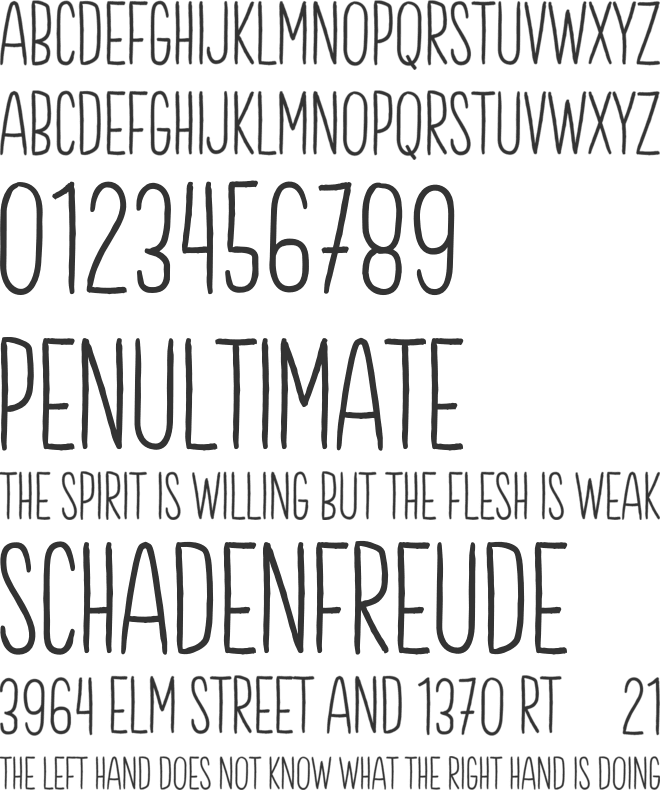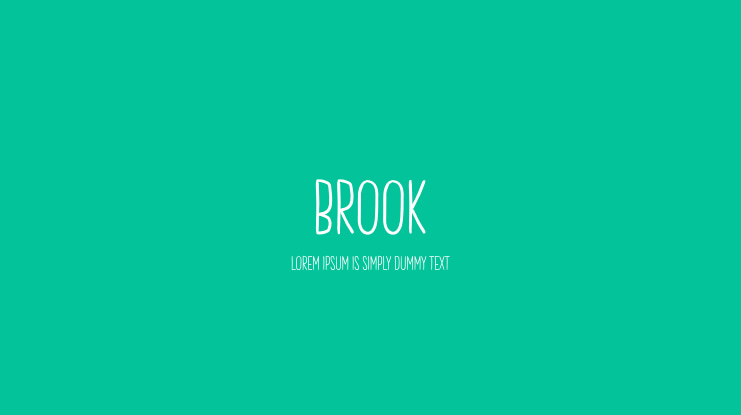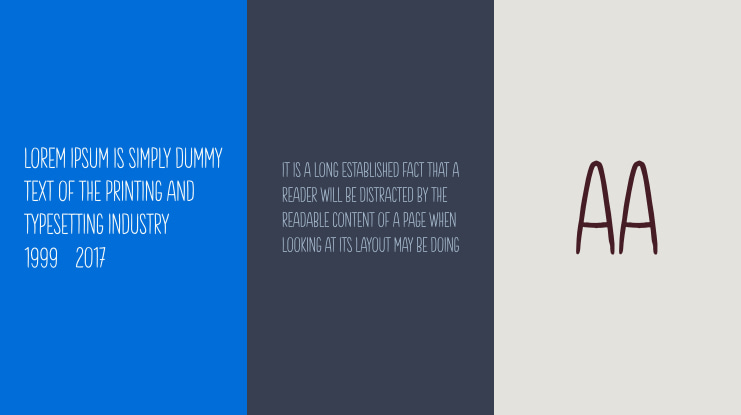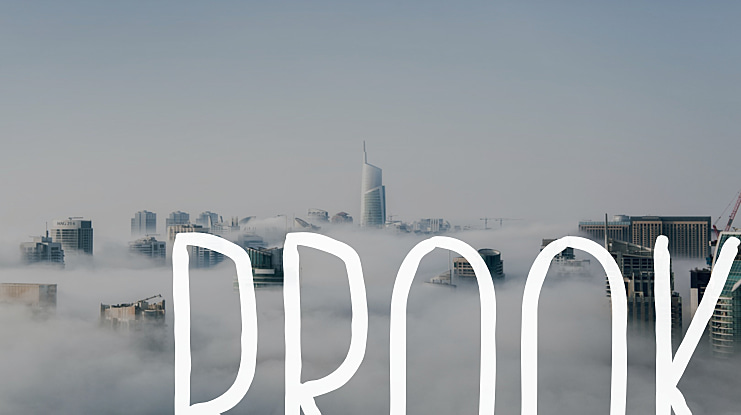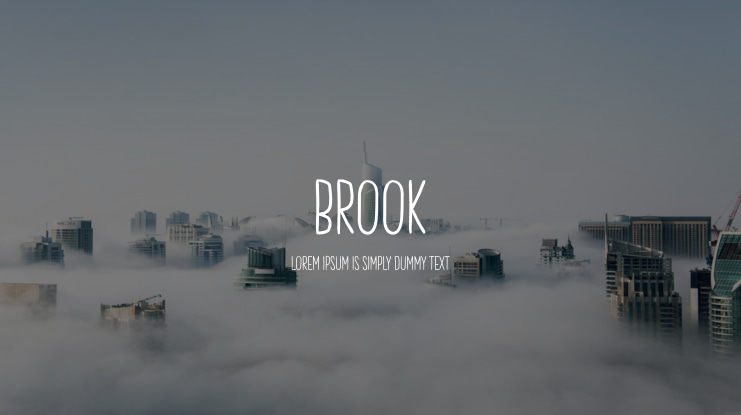
Brook Font
Wahyu Rahmawan
Download Brook, a beautifully handcrafted font for free! Use it to add a touch of magic to your next project. Whether you’re creating a birthday card or a gift tag, Brook is the perfect way to personalize your designs. Don’t miss out on this amazing font – download it now for free!
- 4 Weights (Thin, Light, Regular, Bold)
- Basic Latin A-Z and a-z
- Numerals & Punctuation
- Multilingual Support for ä ö ü Ä Ö Ü …